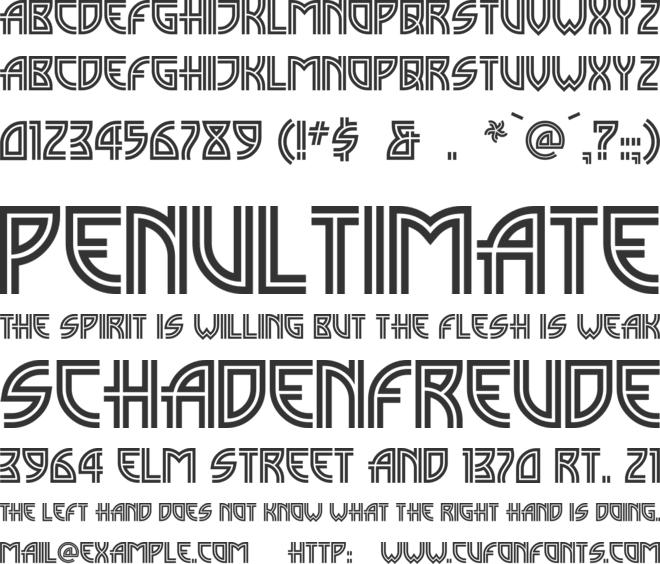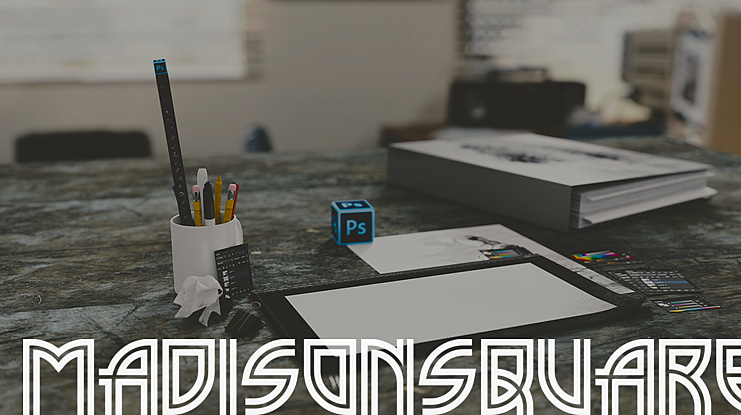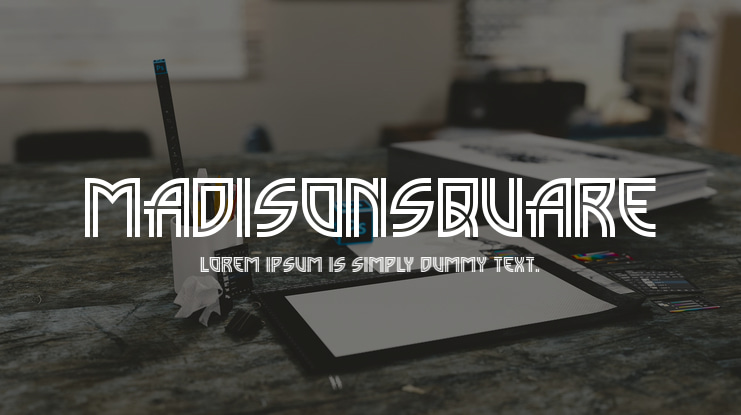
MadisonSquare Font
On another reconnaissance mission, I came across a font called Backlog; although its designer (who was not identified) probably intended to design a contemporary font, the letterforms were pure Art Deco. I adapted this design, replacing the original thick-and-thin strokes with the present bi-line construction. Named, of course, for a certain garden which is not really a garden in NYC.
MadisonSquare Incised font